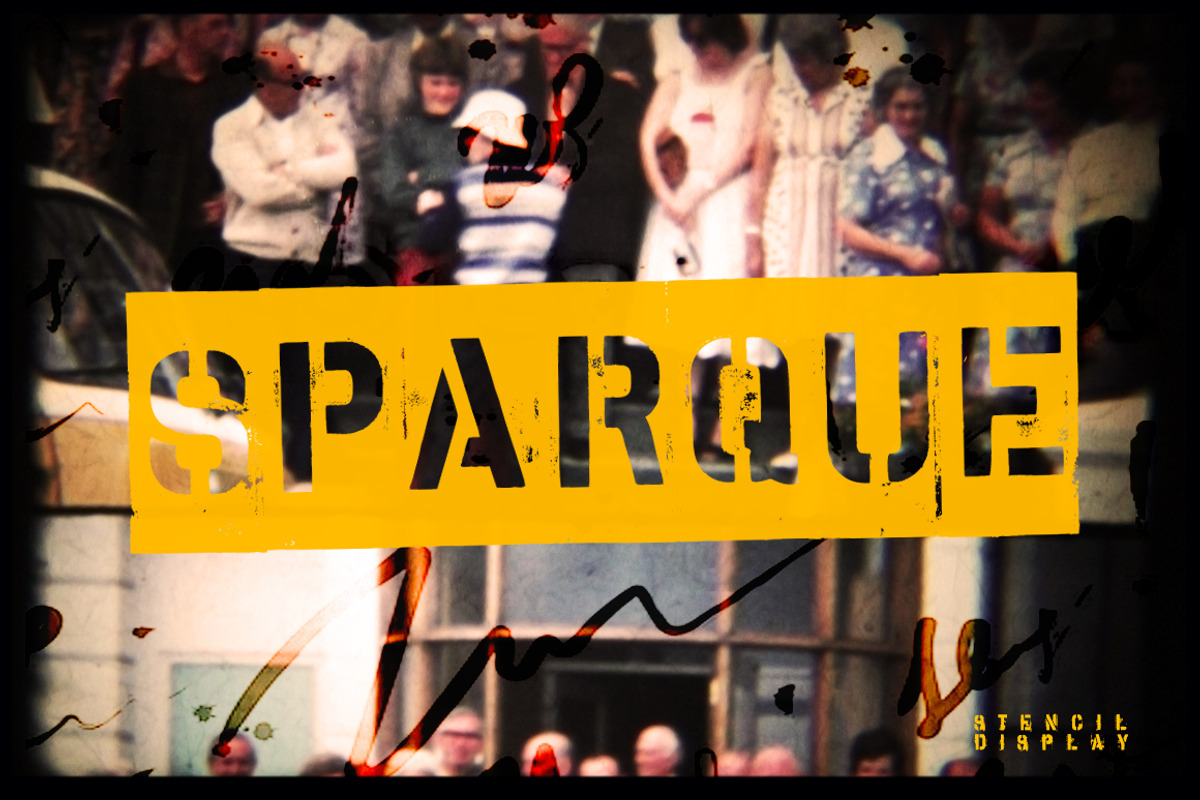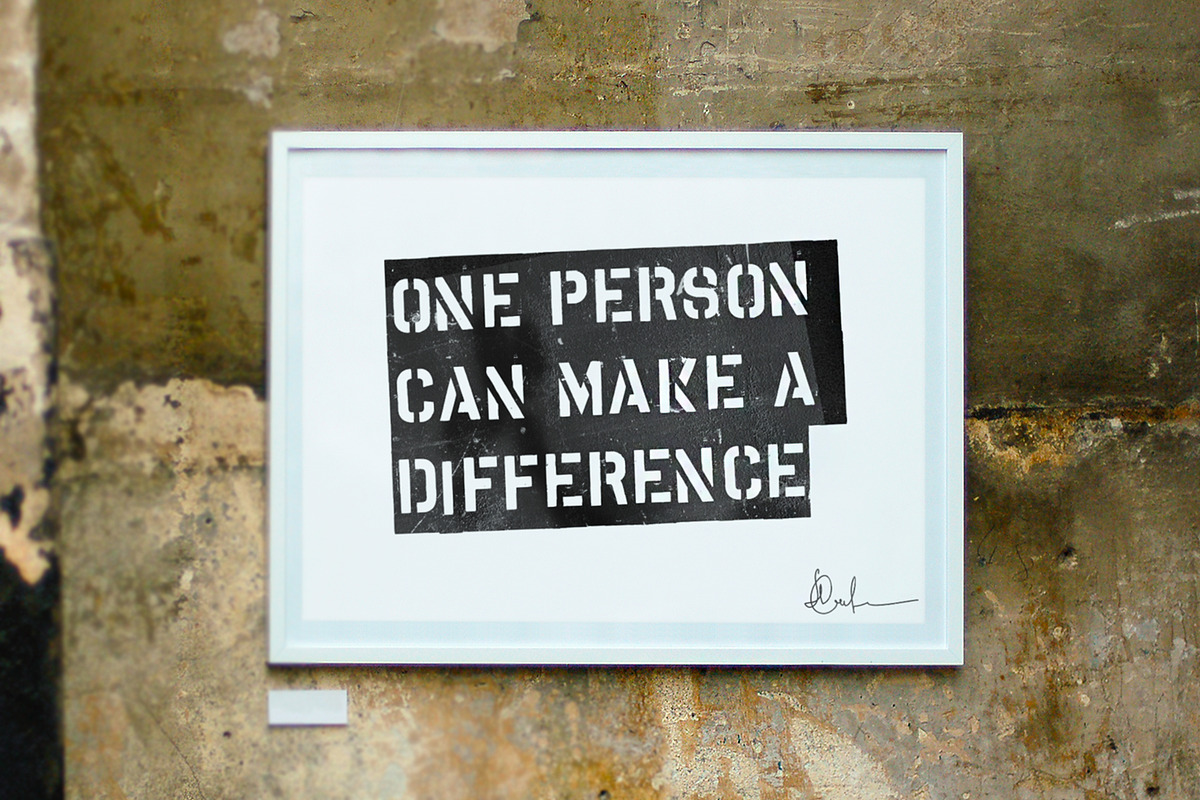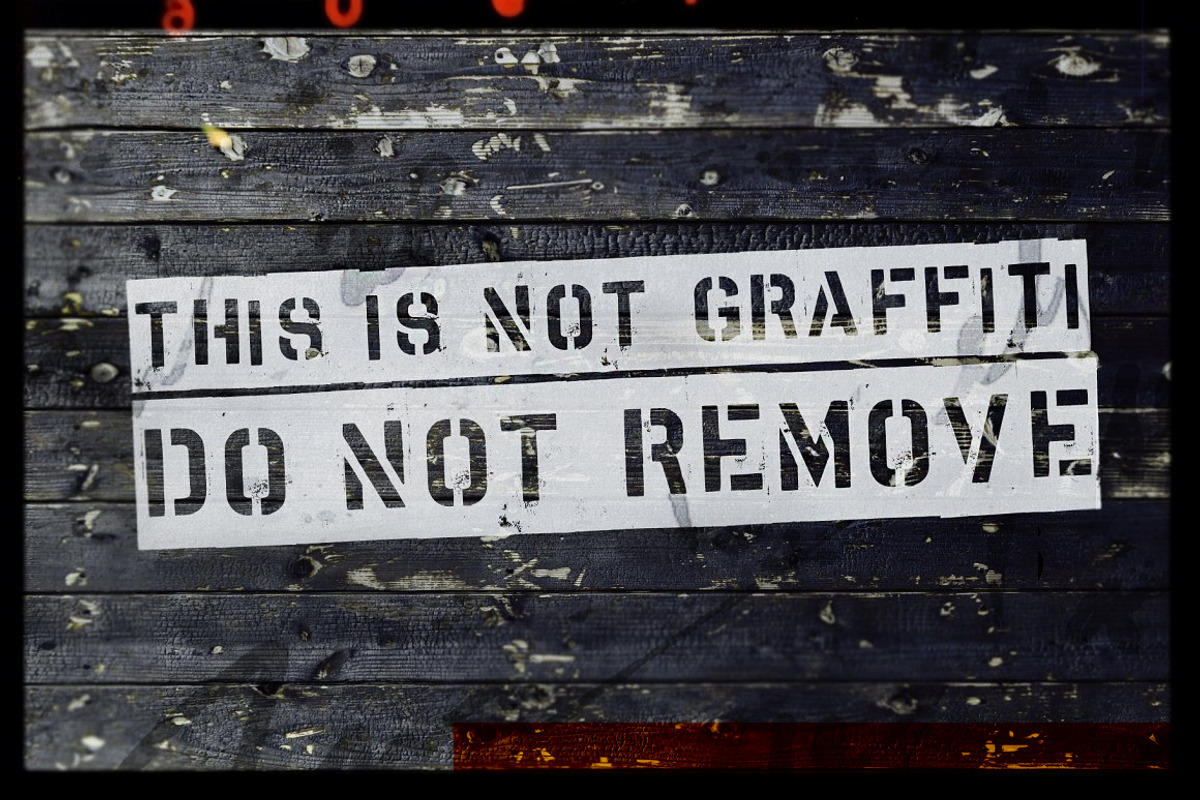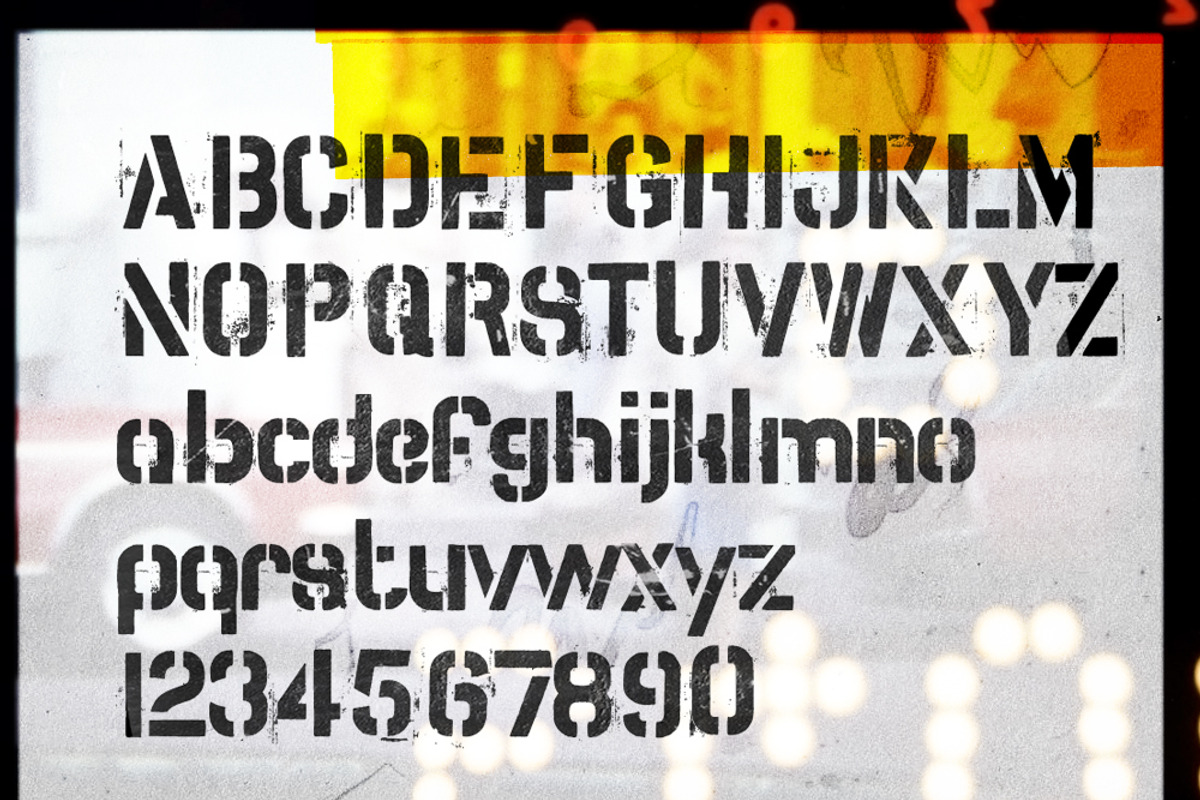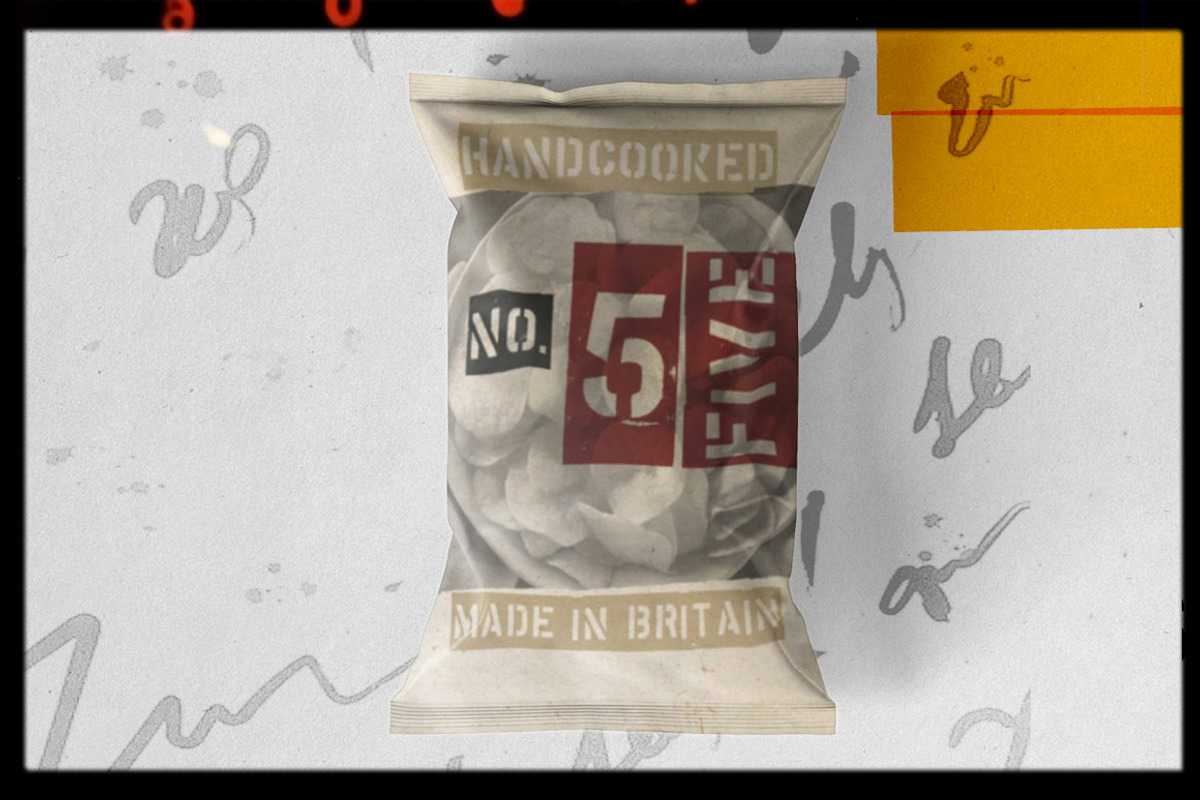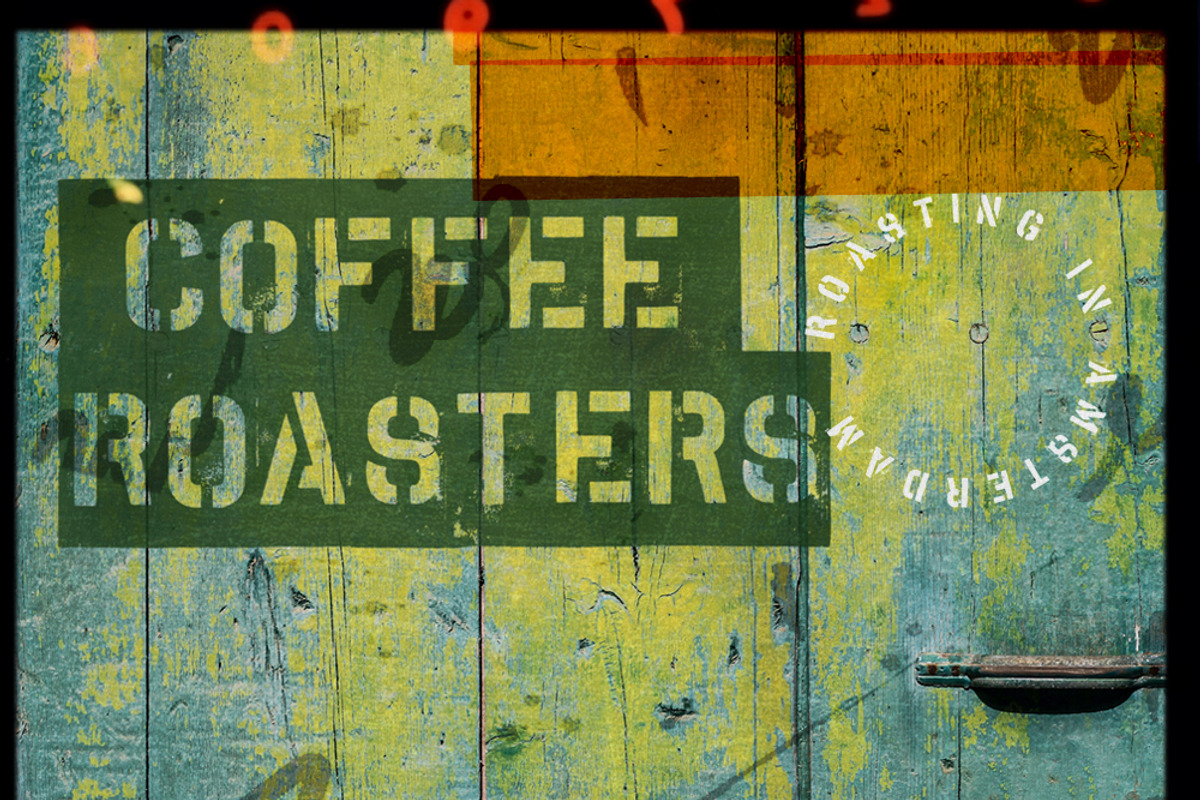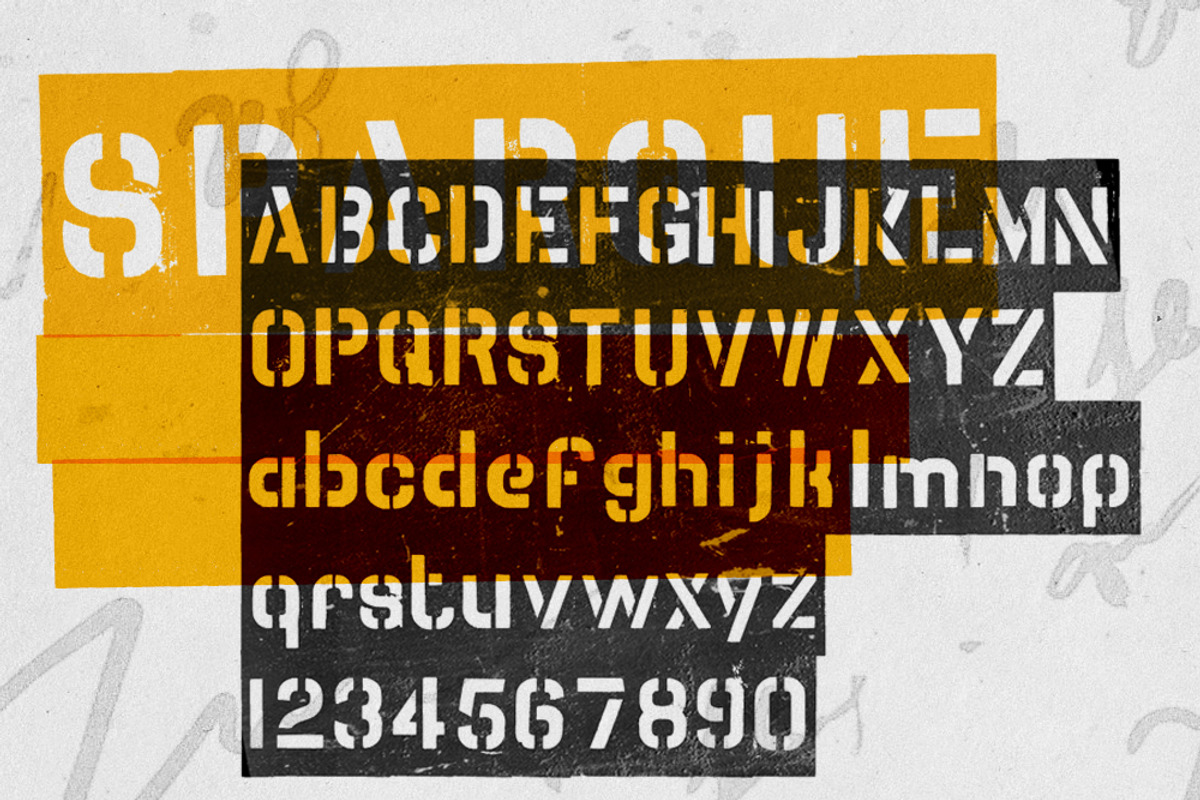
Sparque - Stencil Font
Sparque is a distressed stencil font inspired by classic stencil sets, full of textures for an authentic handmade effect. A handmade stencil effect font in two weights as Outline and Block versions. It brings an authentic voice and works best in strong design.